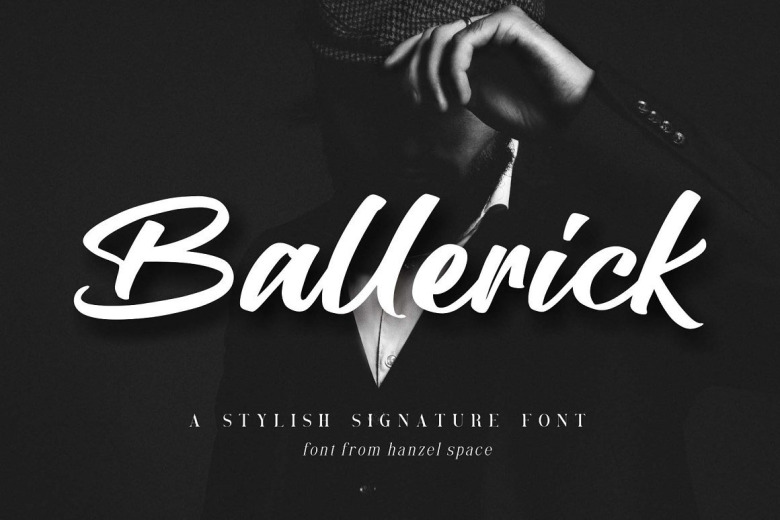
Ballerick Font
Ballerick Brush Font is beautiful script made by love. Made from font designer named Hanzel Studio. Ballerick with natural handwriting touch is suitable for you who need a typeface for Headline, Apparel, Invitation, Branding, Wedding, Logo Design, Lettering, Logotype, Clothing, Poster, Magazine and other design project.
Ballerick Script Font